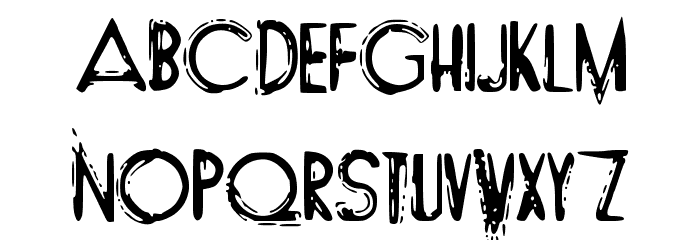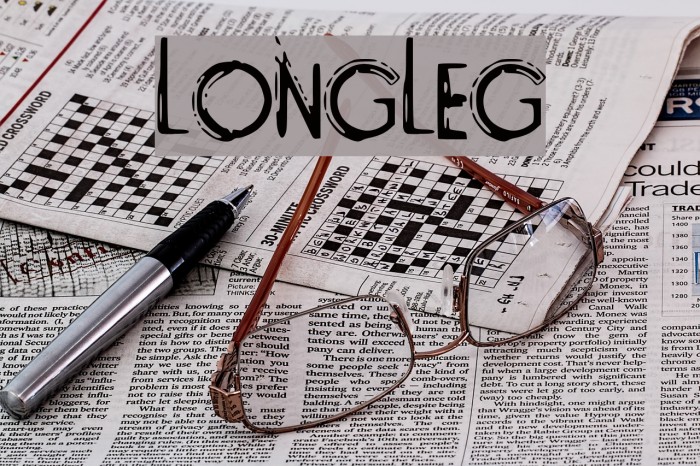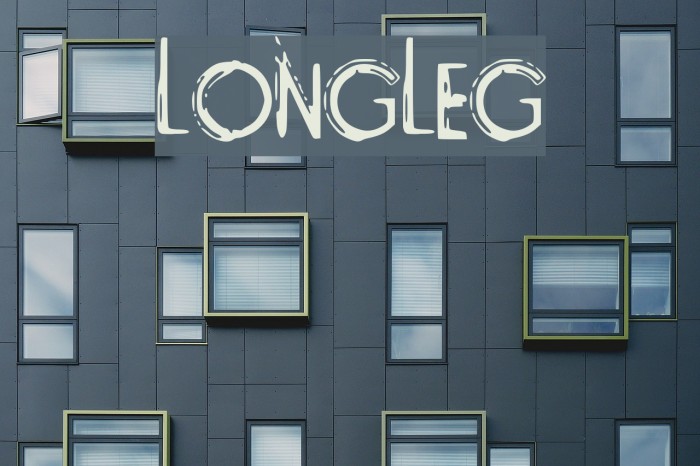
LongLeg Font
This font features a distressed, grunge style with irregular edges and a rough texture, giving it a worn and rugged appearance. The characters are bold and slightly condensed, with varying stroke thickness that adds to its dynamic and edgy look. The uppercase and lowercase letters maintain a consistent style, while the numbers and special characters follow the same distressed theme. This font is ideal for projects that require a bold statement or a vintage, rebellious aesthetic.
A bold, distressed font with a rugged, grunge style.
- Proposed Projects: Ideal for music album covers, posters, urban-themed designs, and any project needing a bold, edgy look.
- Overall Style: Grunge, Vintage
- Use Case: Headlines, Posters, Logos